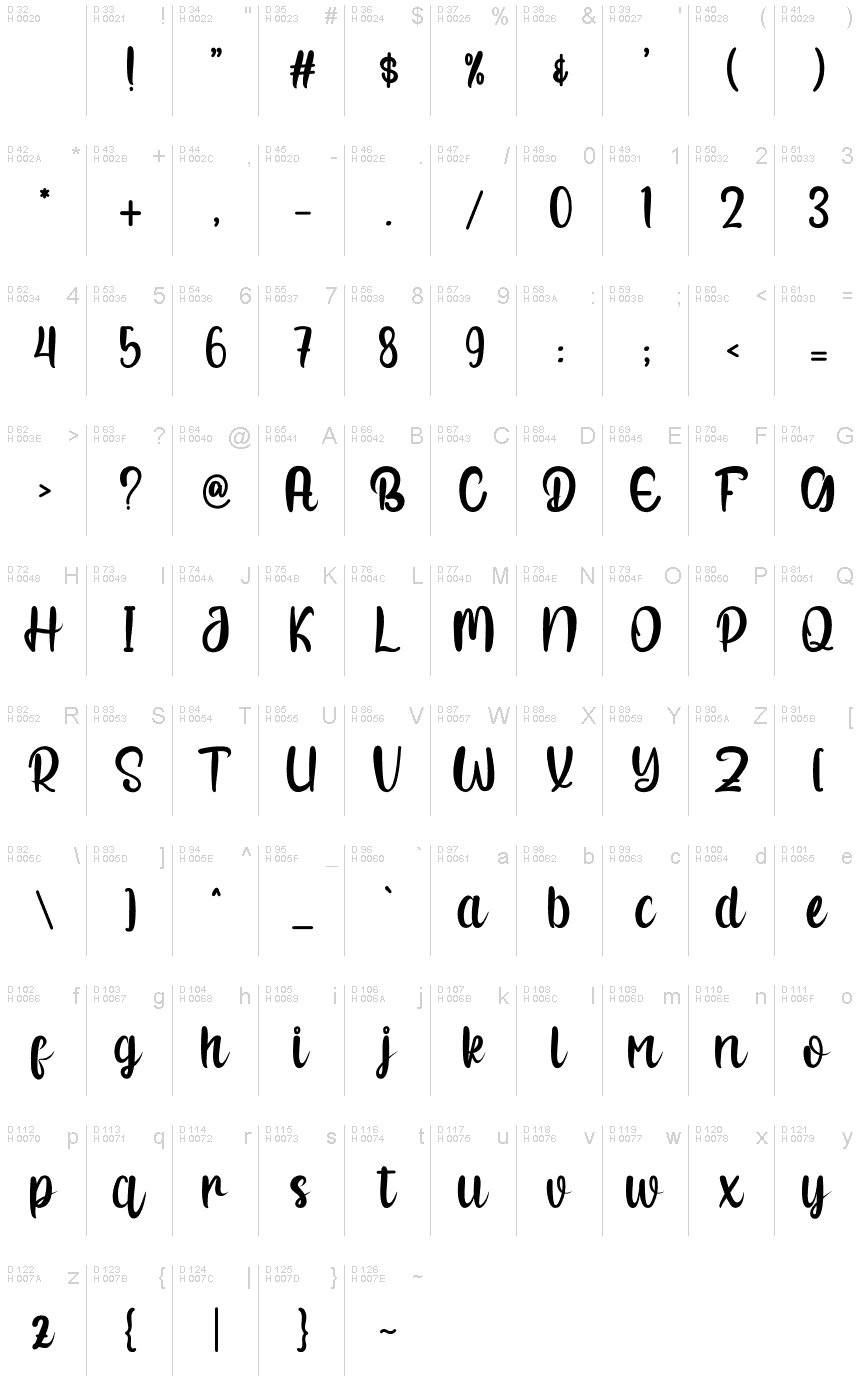
Delight
Introducing Delight, a semi-narrow handwritten font created by Inermedia Studio. Perfect for creating beautiful logos, invitations and quotes, Delight is the perfect choice for adding a creative touch to any project!